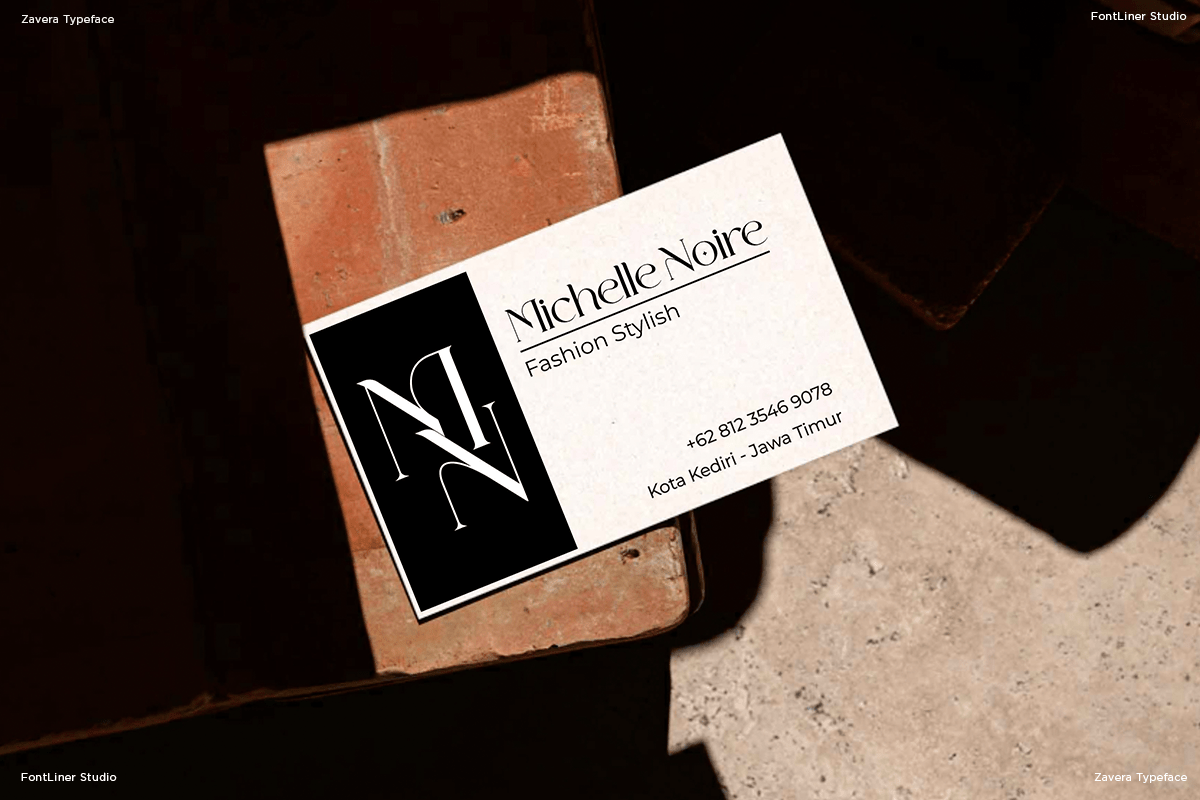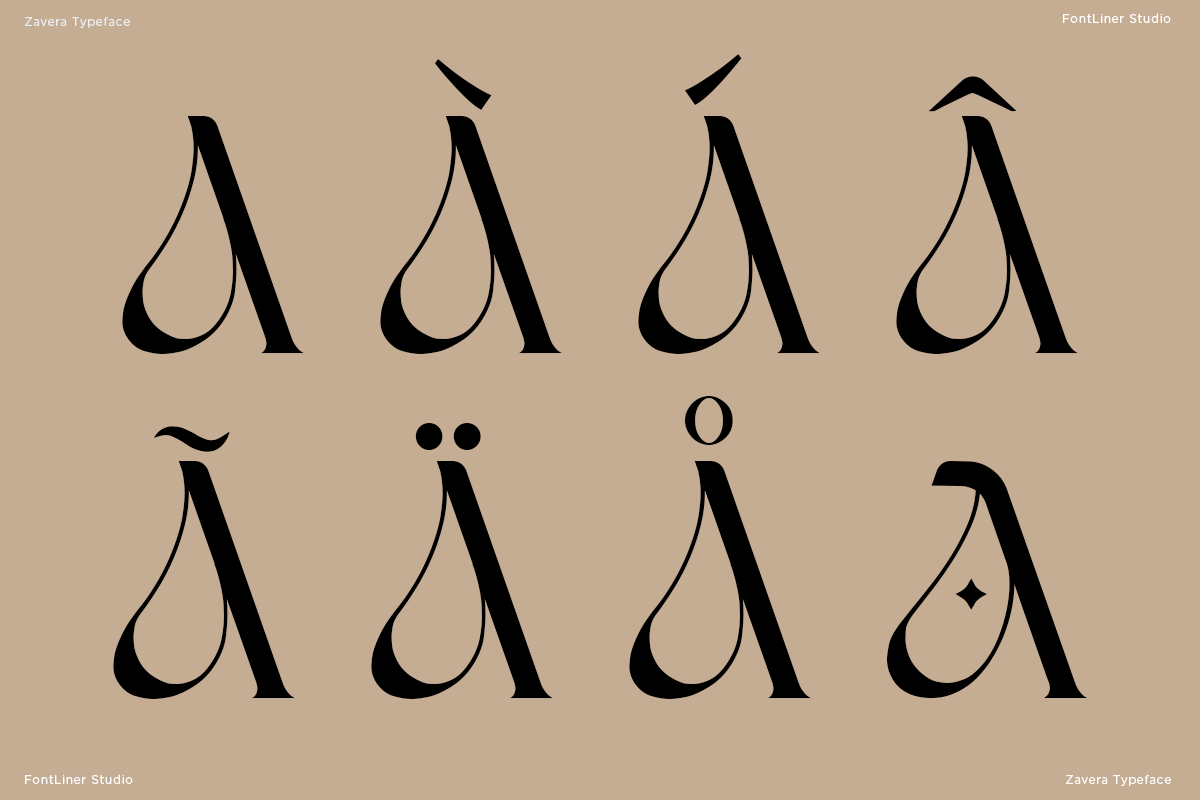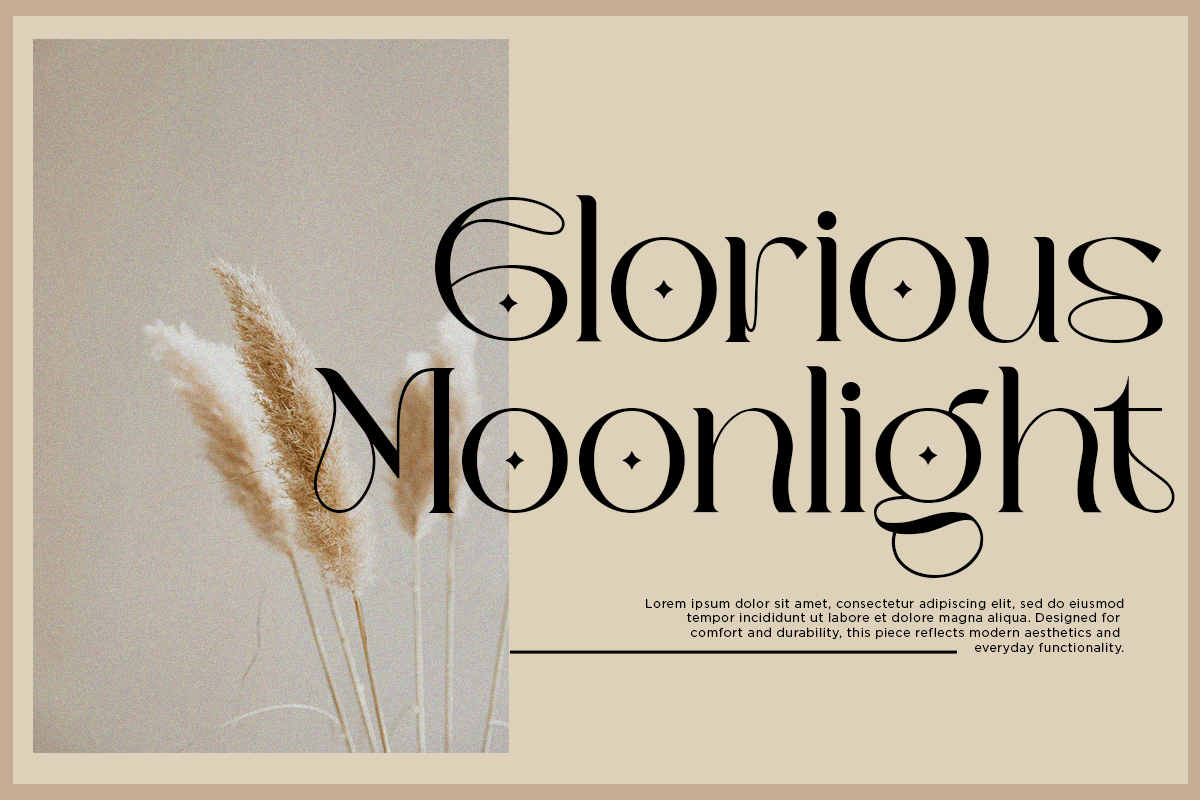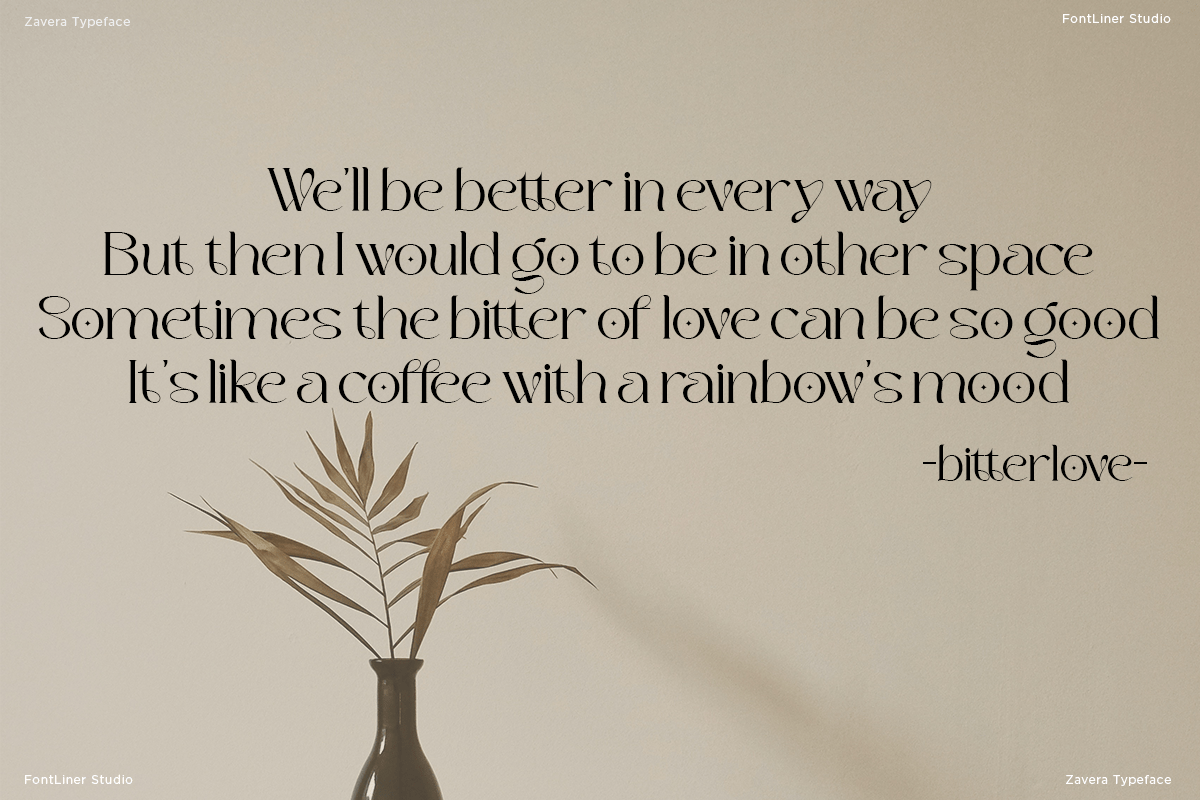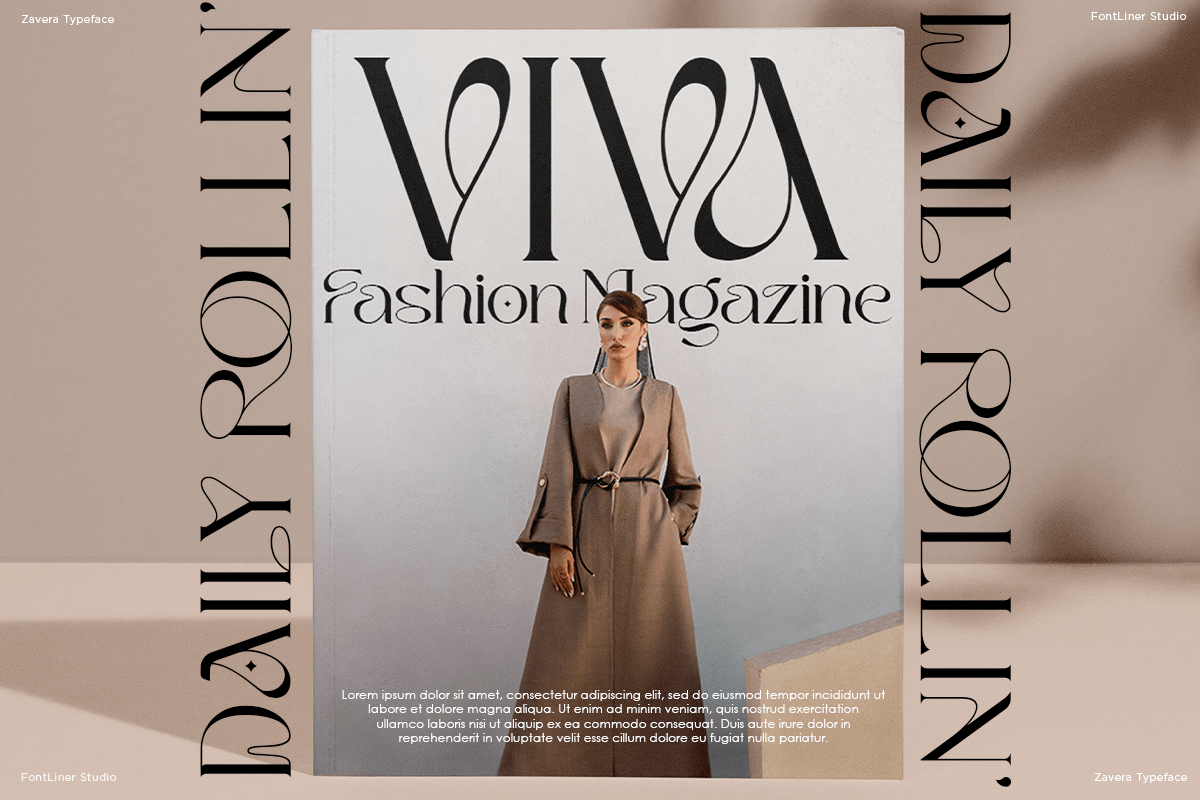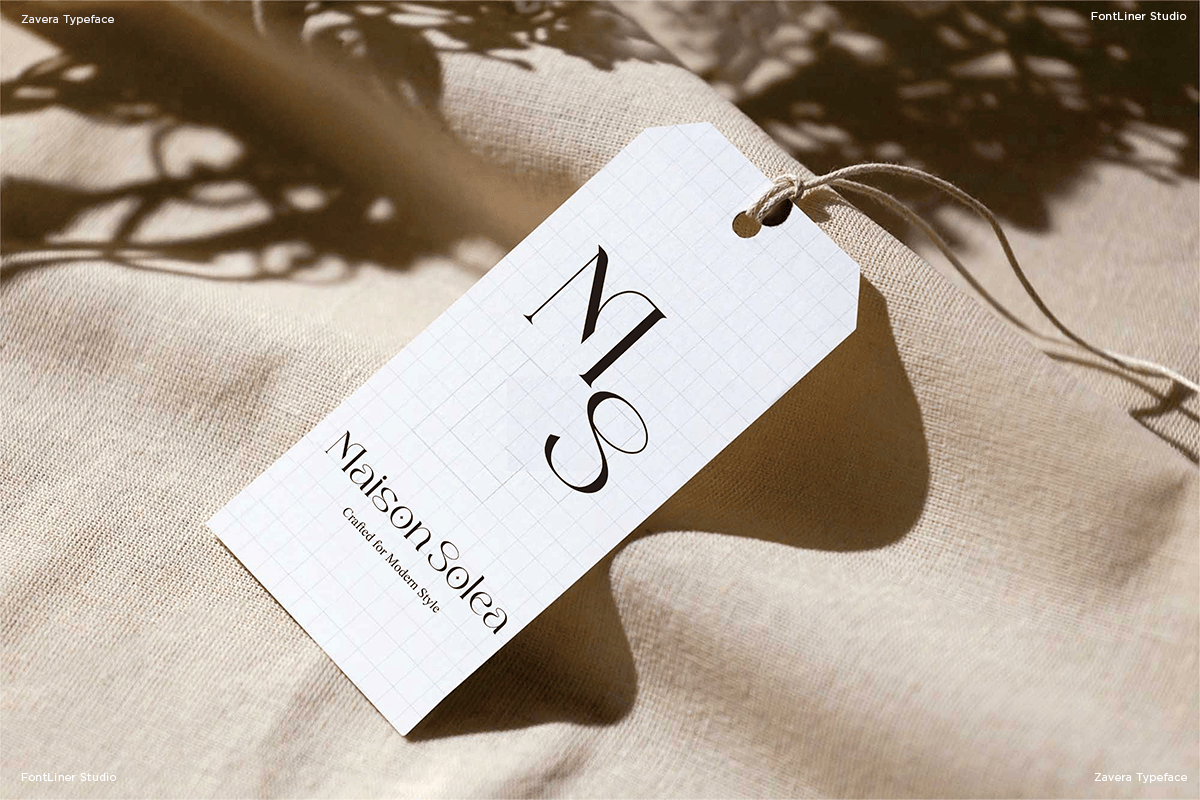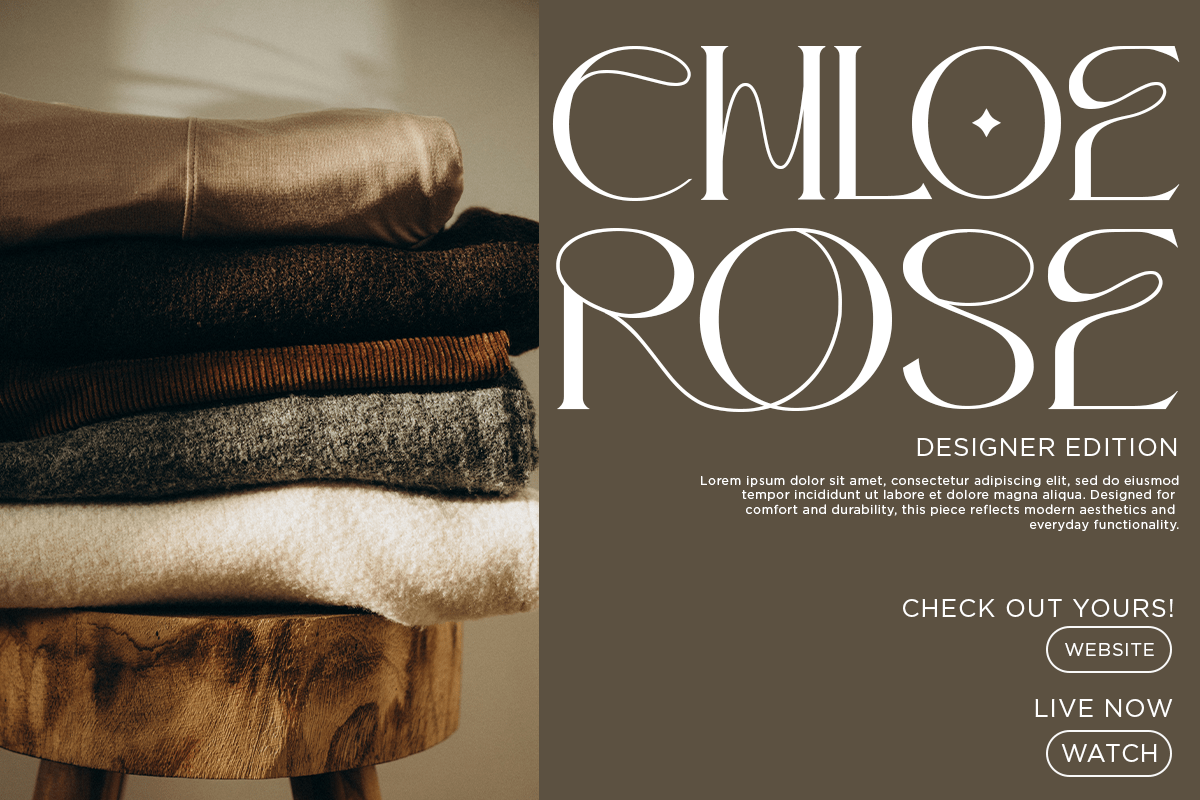
Zavera – Elegant Serif Font
Zavera is an elegant serif font designed to convey luxury, softness, and timeless beauty. Featuring refined letterforms, graceful curves, and beautiful ligatures, Zavera delivers a sophisticated visual presence that feels modern yet classic.
Crafted with attention to balance and detail, Zavera blends editorial elegance with contemporary aesthetics. Its smooth contrasts and flowing alternates create a polished look that elevates headlines, branding, and premium design projects. The ligatures and alternates add expressive charm, allowing designers to create distinctive and memorable typography.
Zavera is perfect for high-end branding, fashion editorials, beauty products, wedding designs, and luxury packaging. Whether used for logos, magazines, invitations, or promotional visuals, Zavera brings a sense of confidence, elegance, and artistic refinement to every composition. Designed for creatives who value style and sophistication, Zavera transforms text into an elegant visual statement.
– Uppercase, Lowercase
– Alternates and ligatures
– Symbol, Number
– Multilingual Support